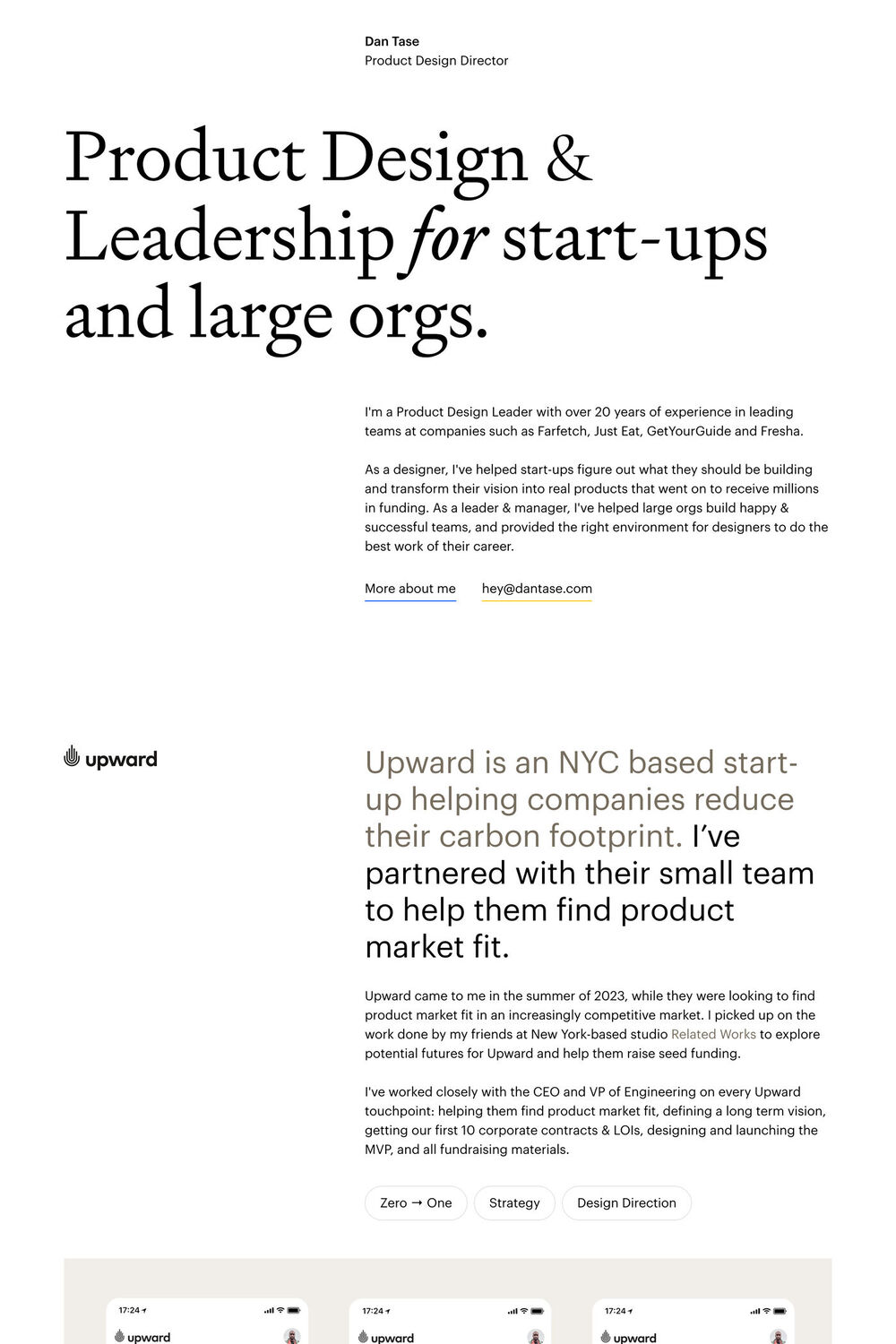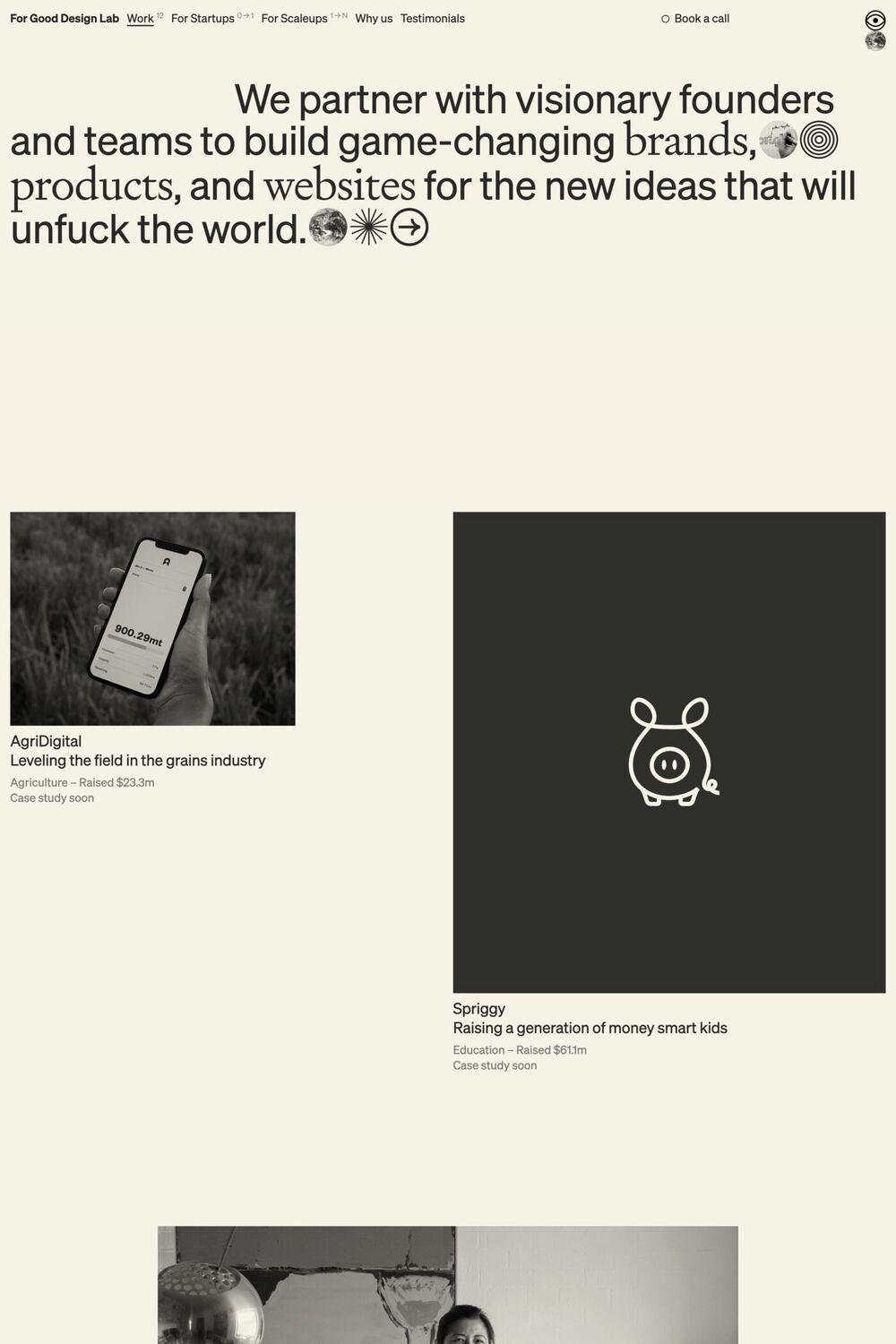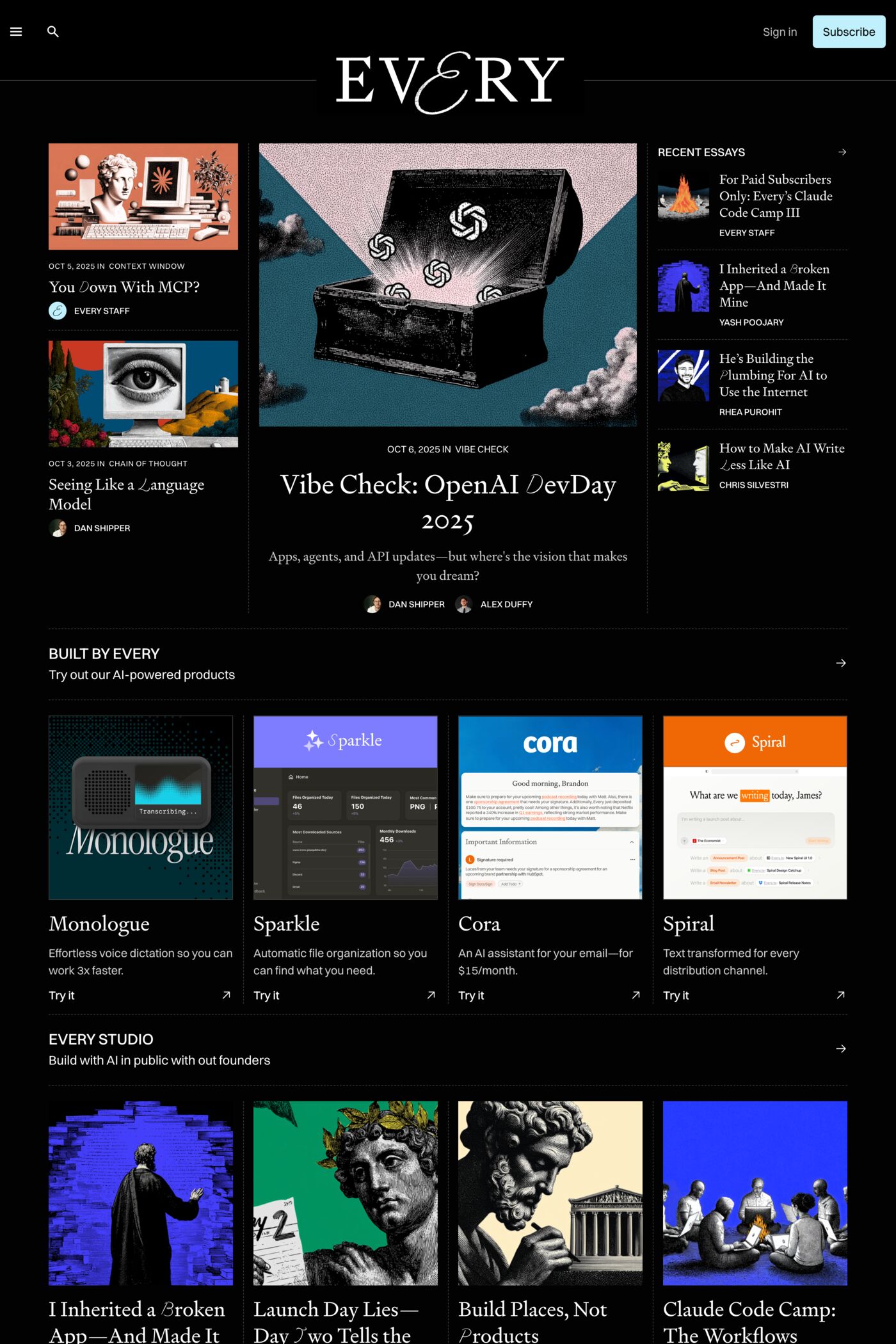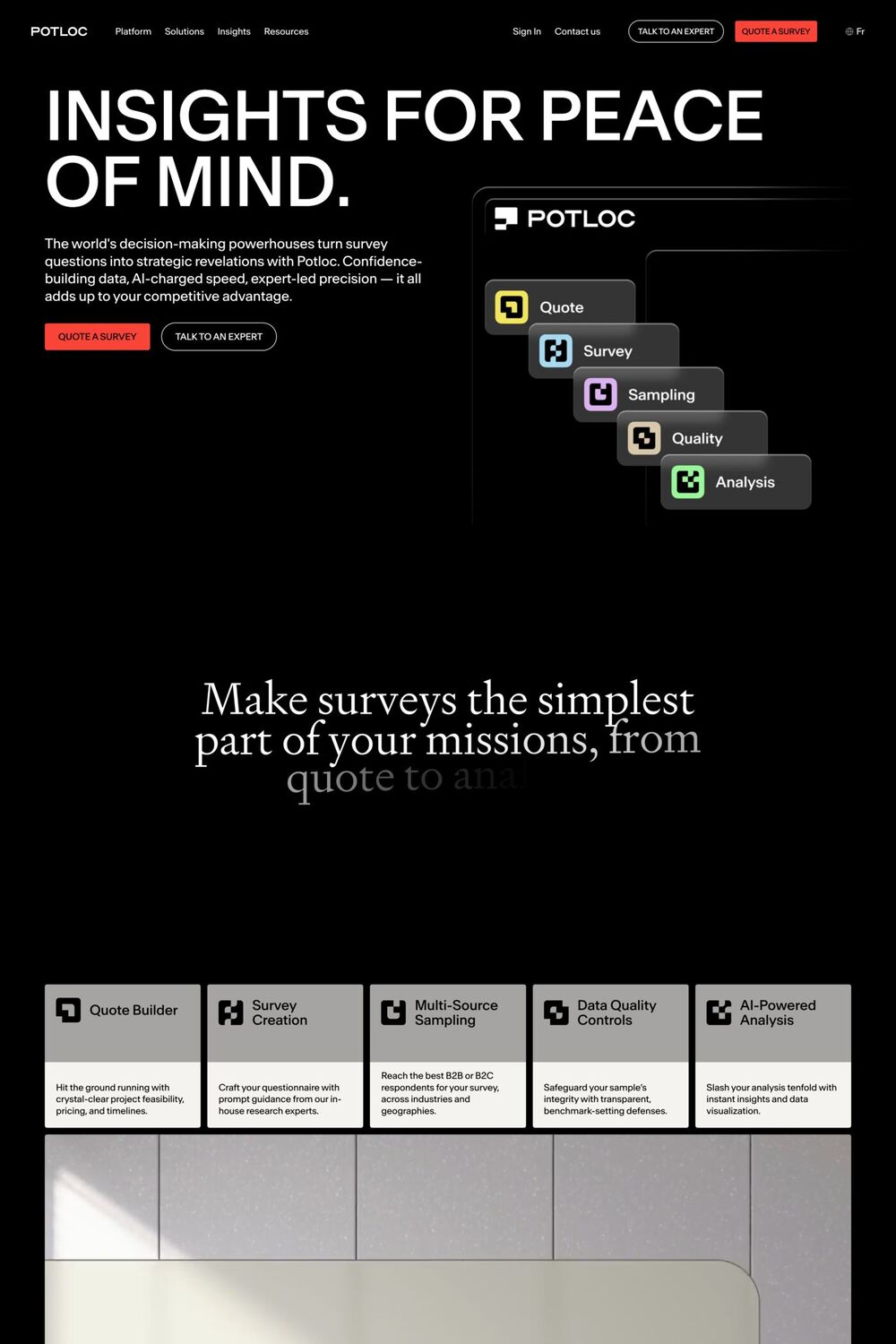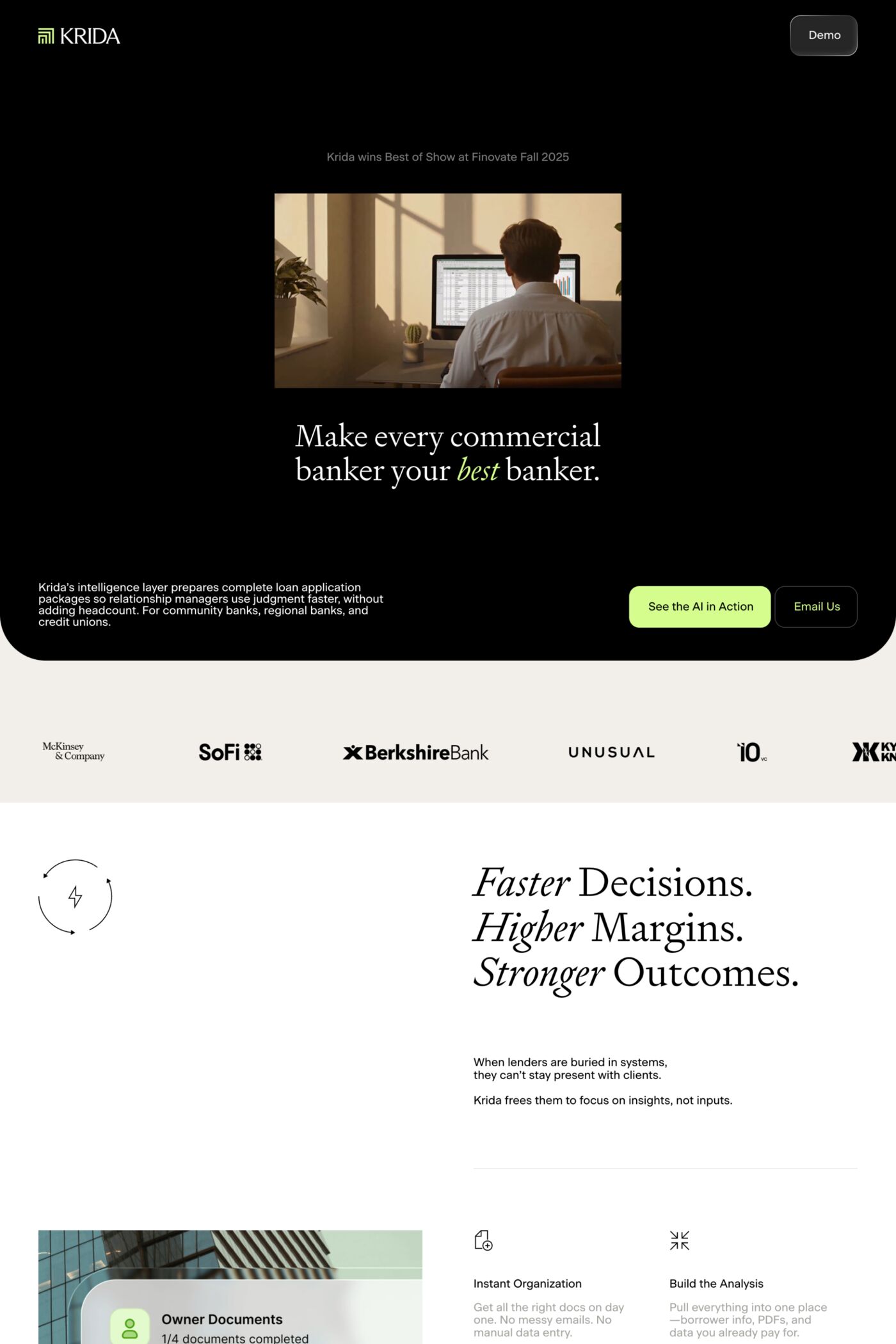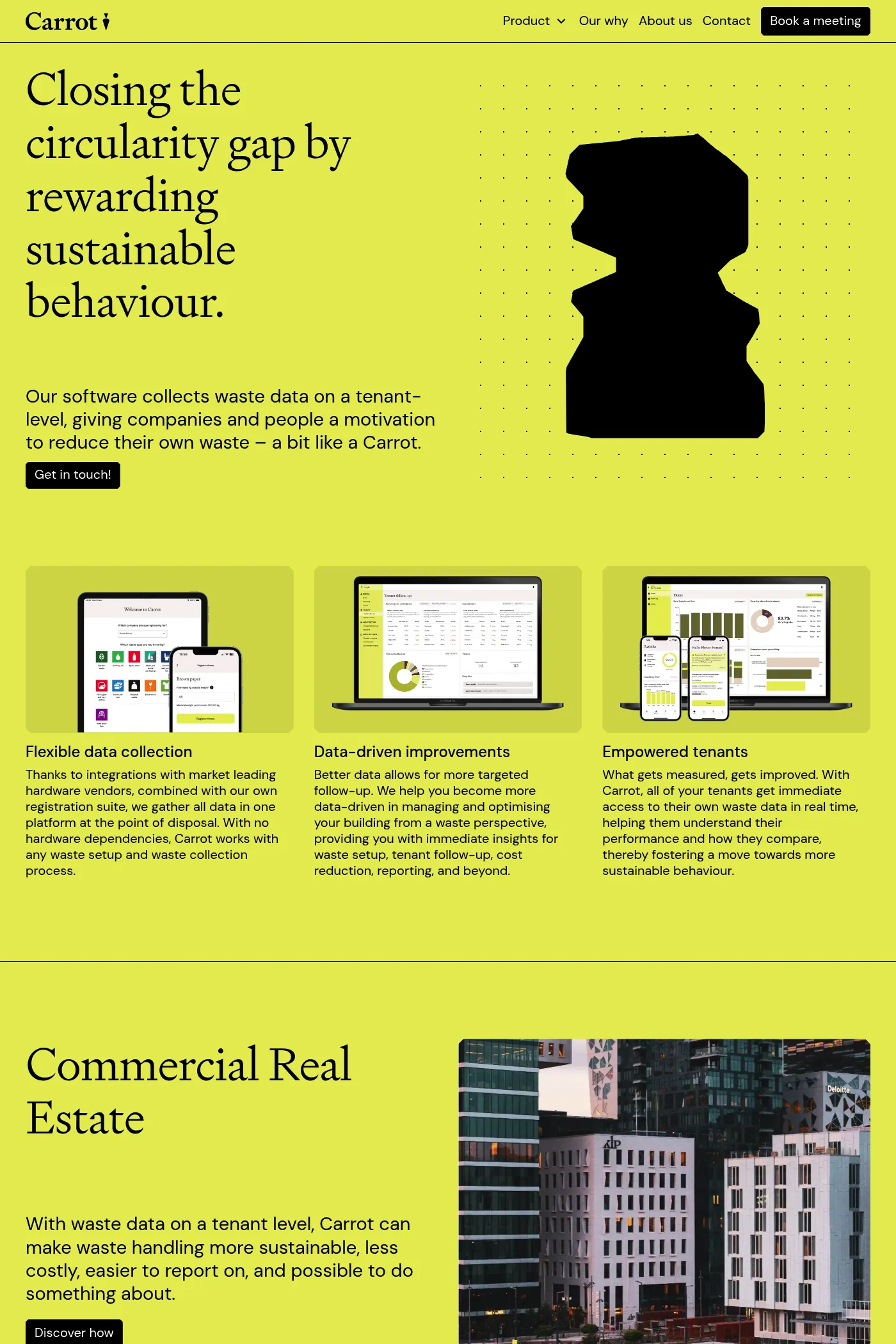
Signifier is a serif typeface from Klim Type Foundry.
Signifier is a Brutalist response to 17th century typefaces. Designed by Kris Sowersby, Signifier’s digital immateriality draws on a deeply material past. Acknowledging the processes and tools of digital form-making, Sowersby worked consciously with the computer to recast the lead, antimony, and tin of the 17th century Fell Types into ones and zeros. Signifier emerged from this alchemy with Bézier curves and sharp vectors determined by machine logic and a Brutalist ethos.